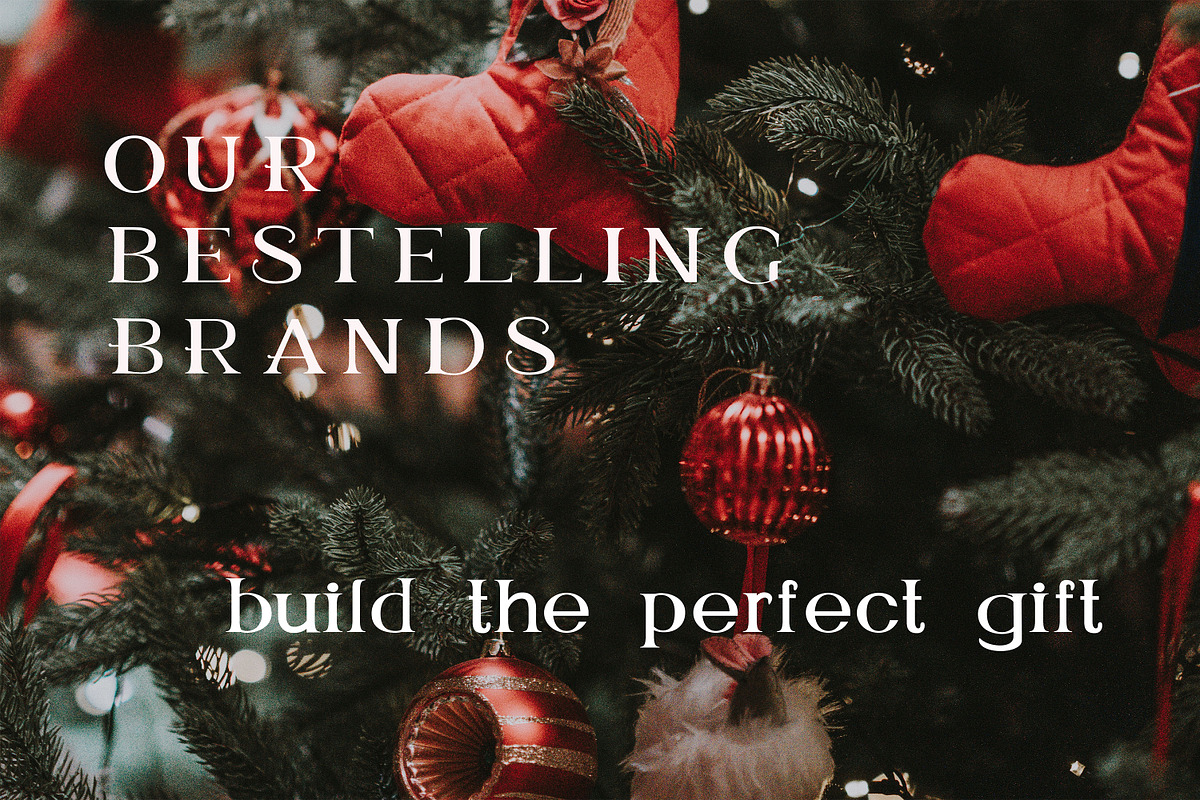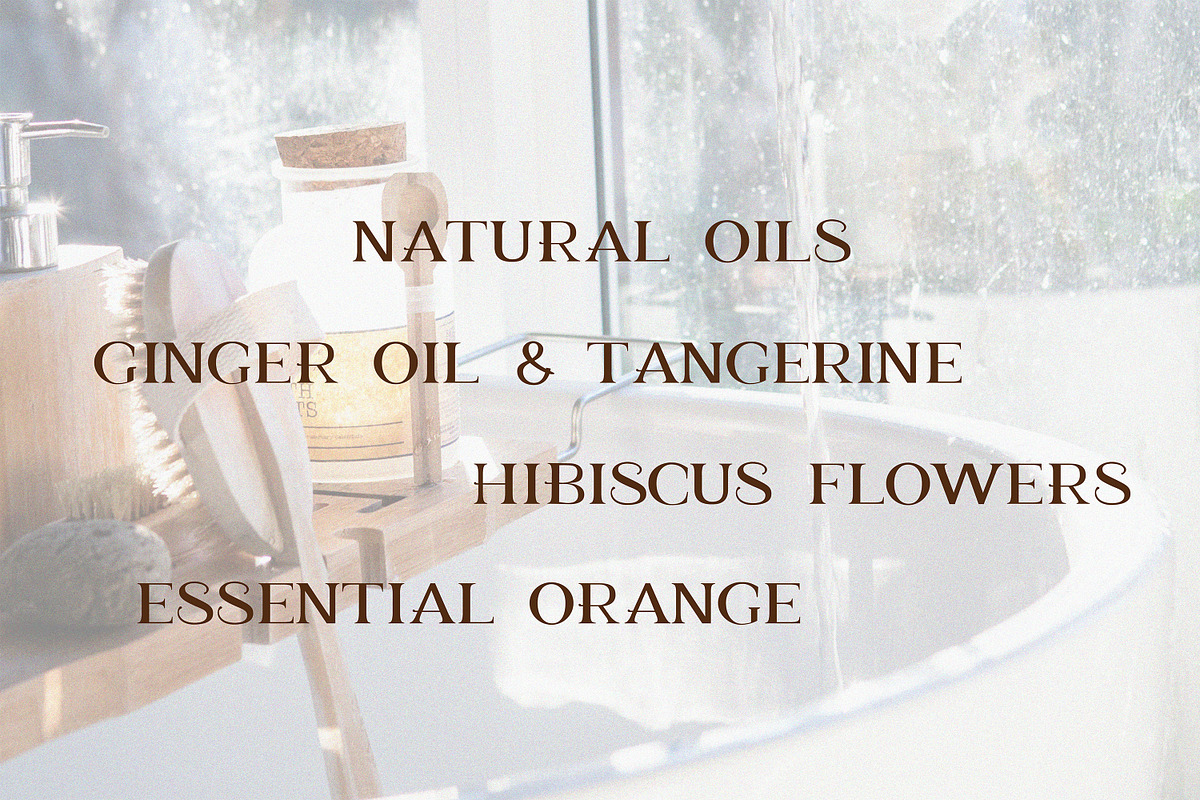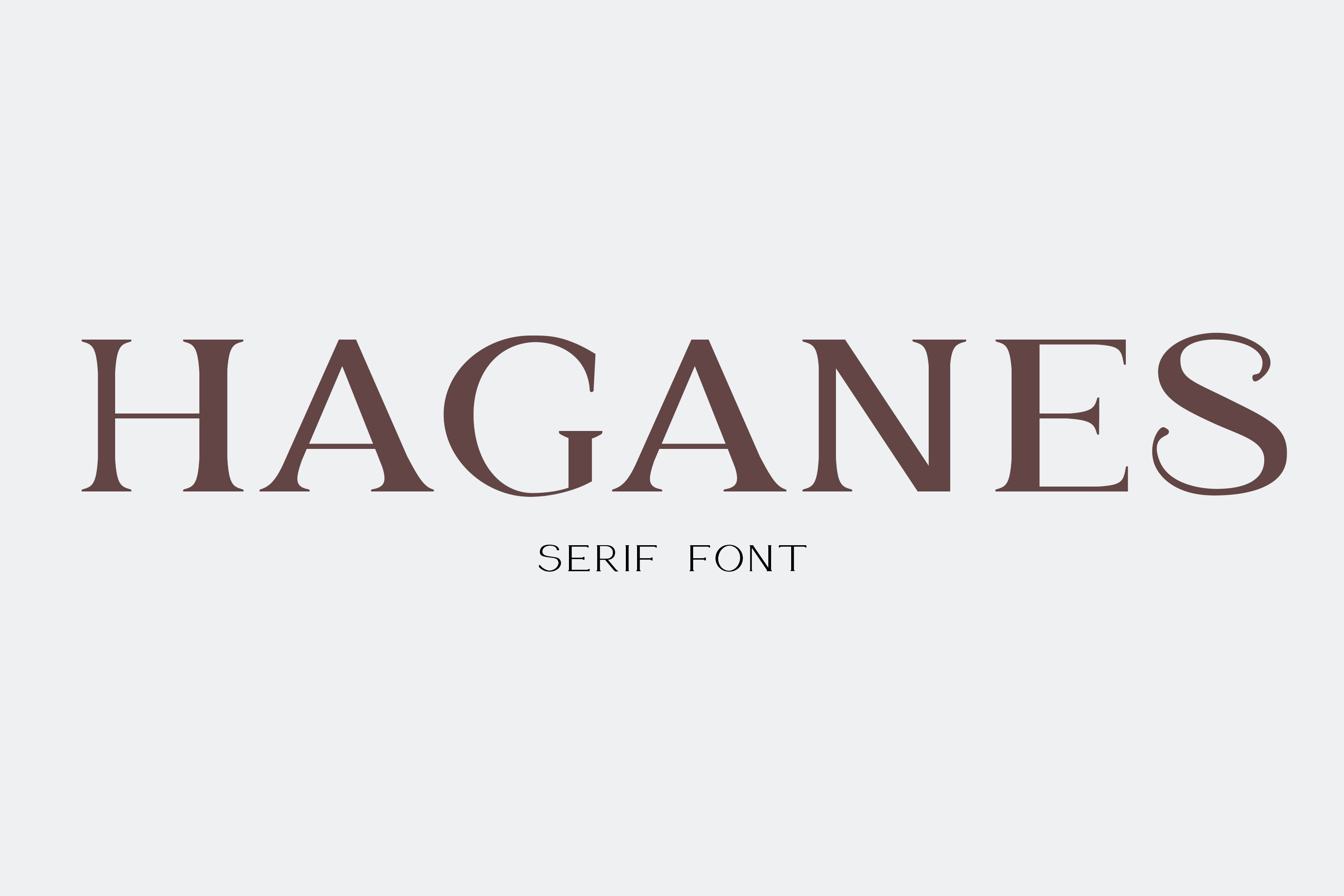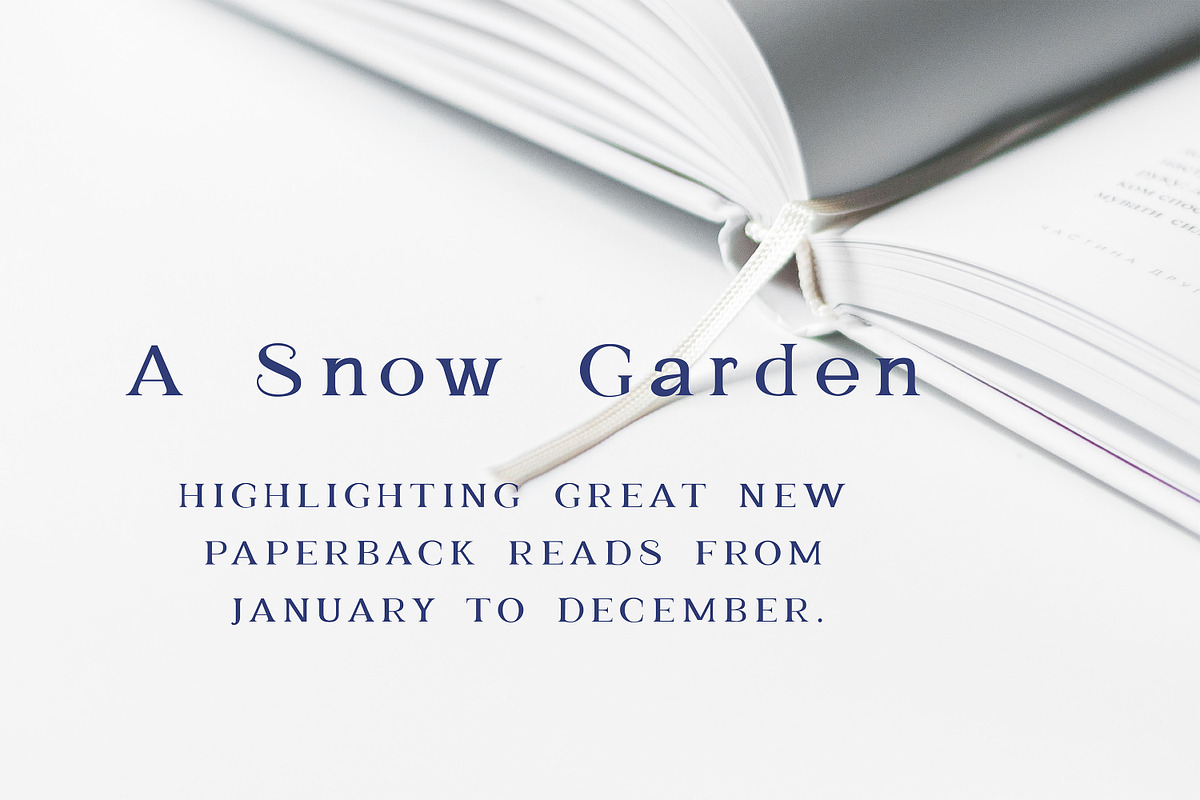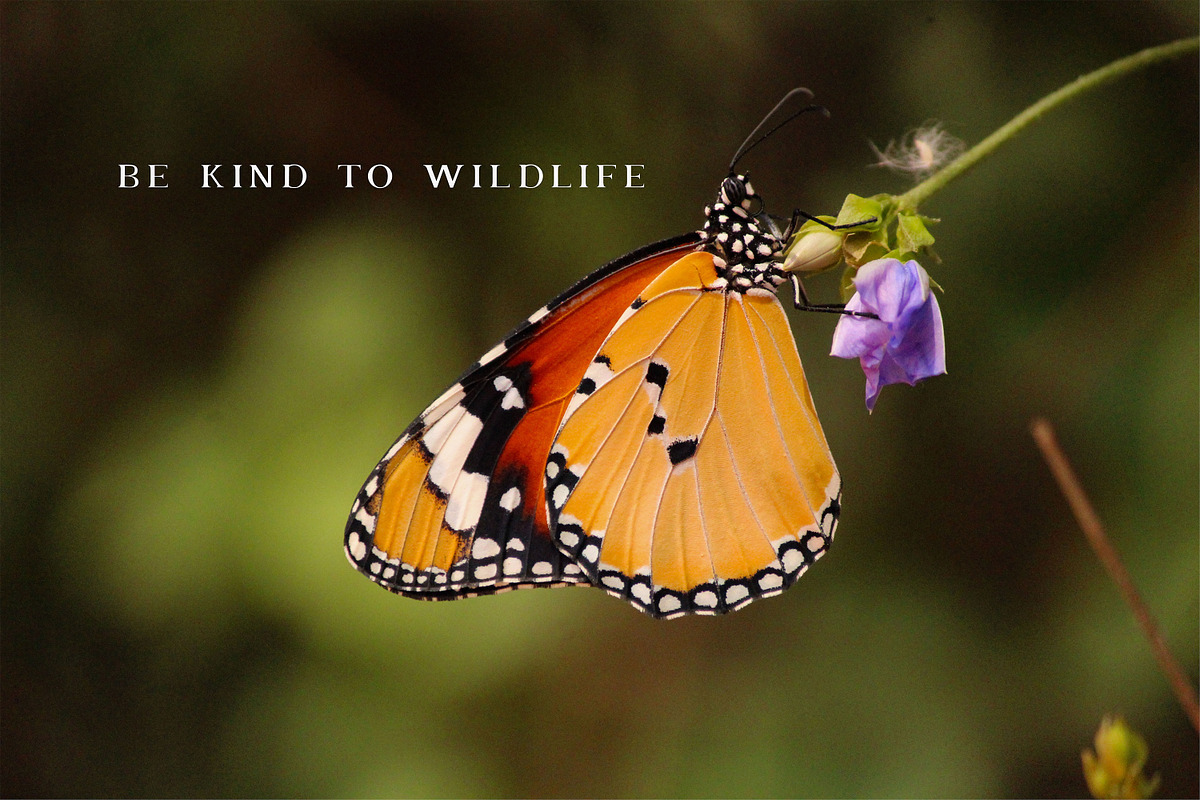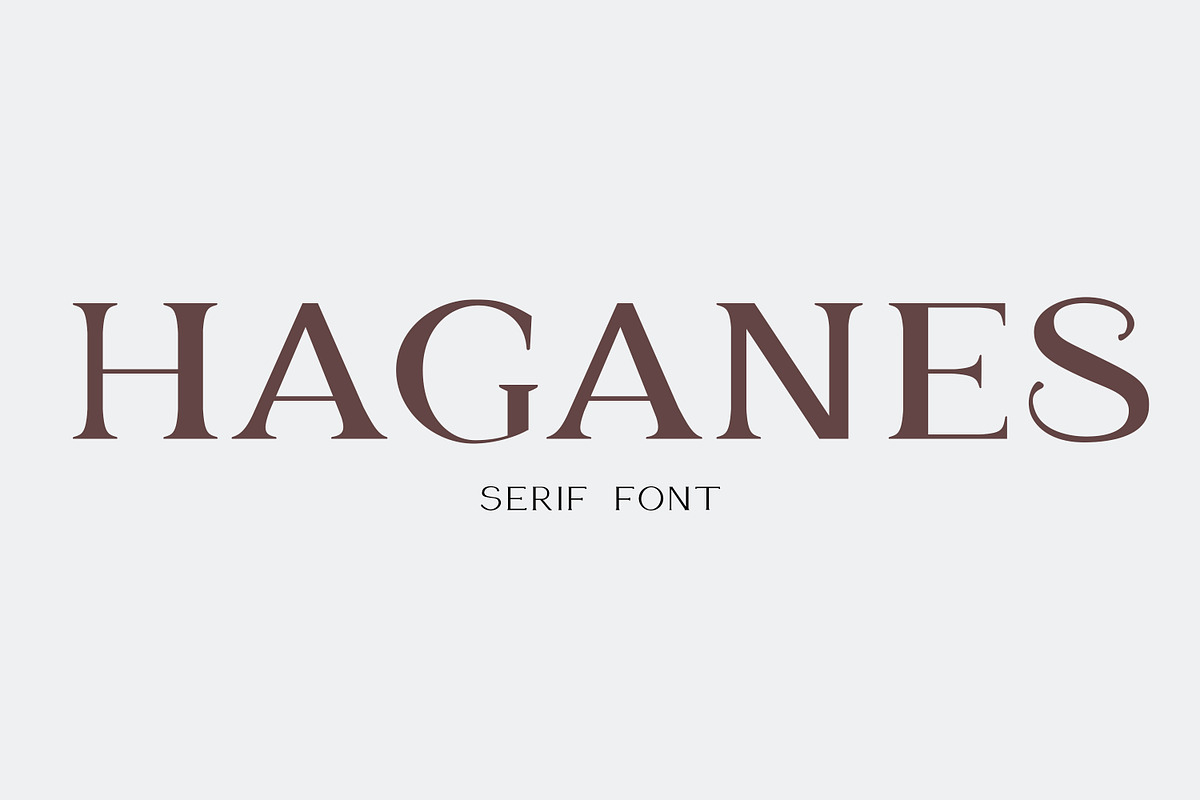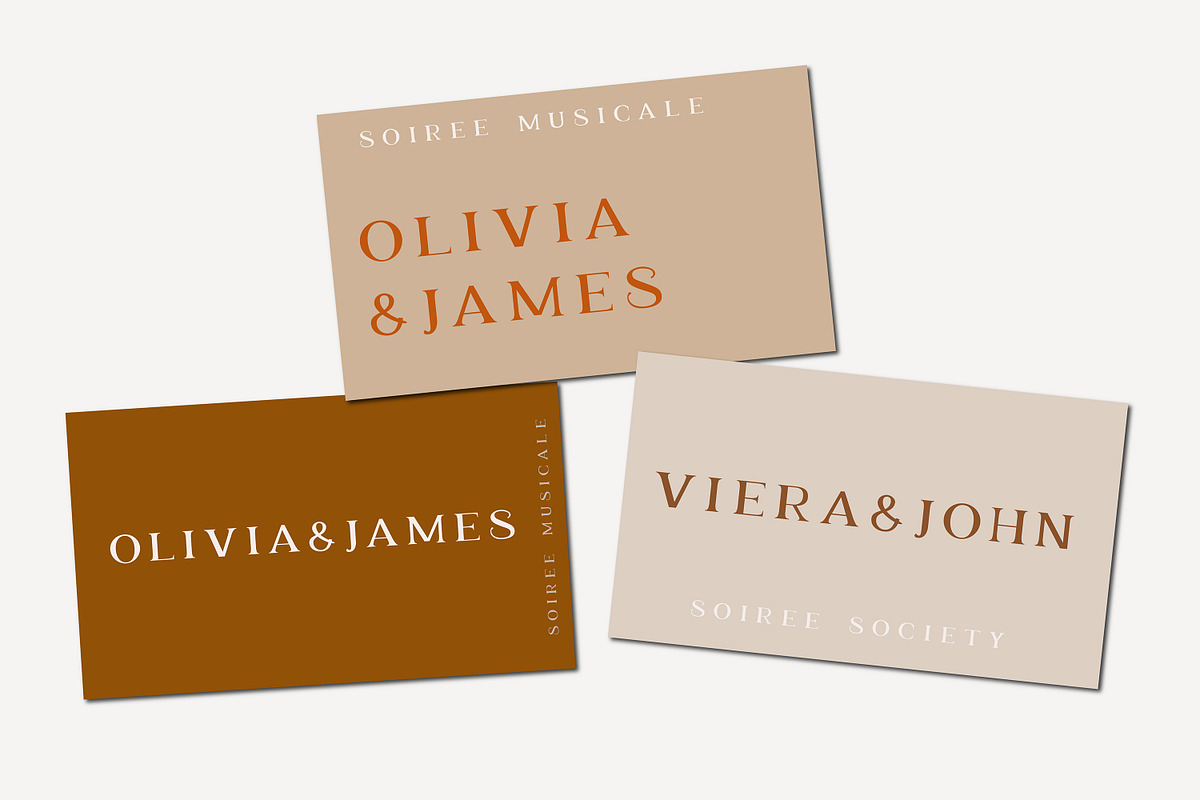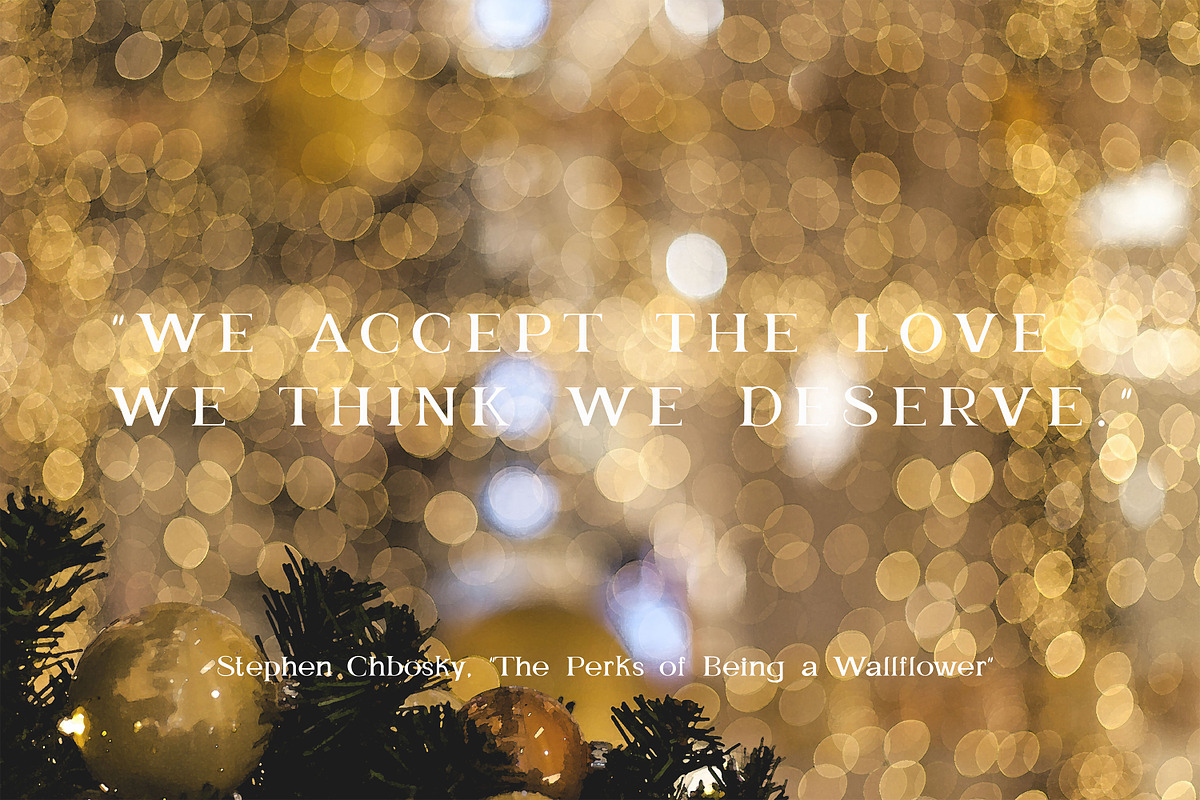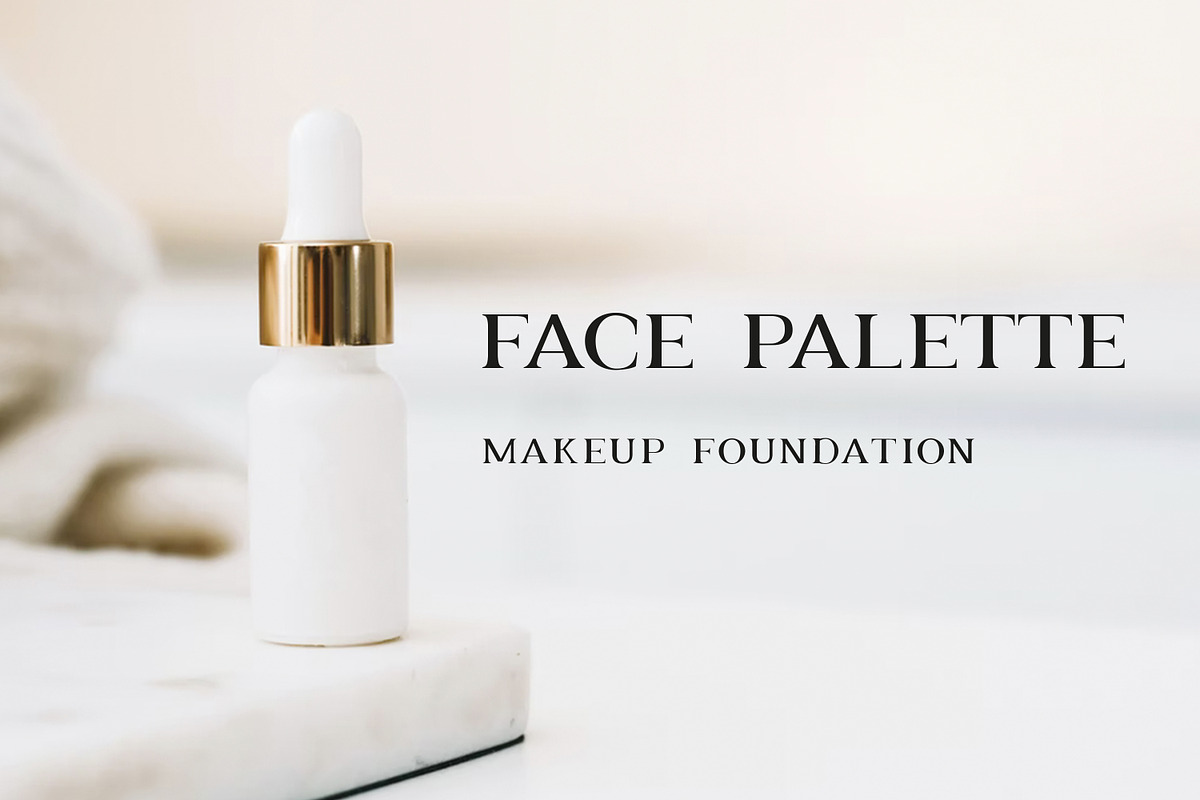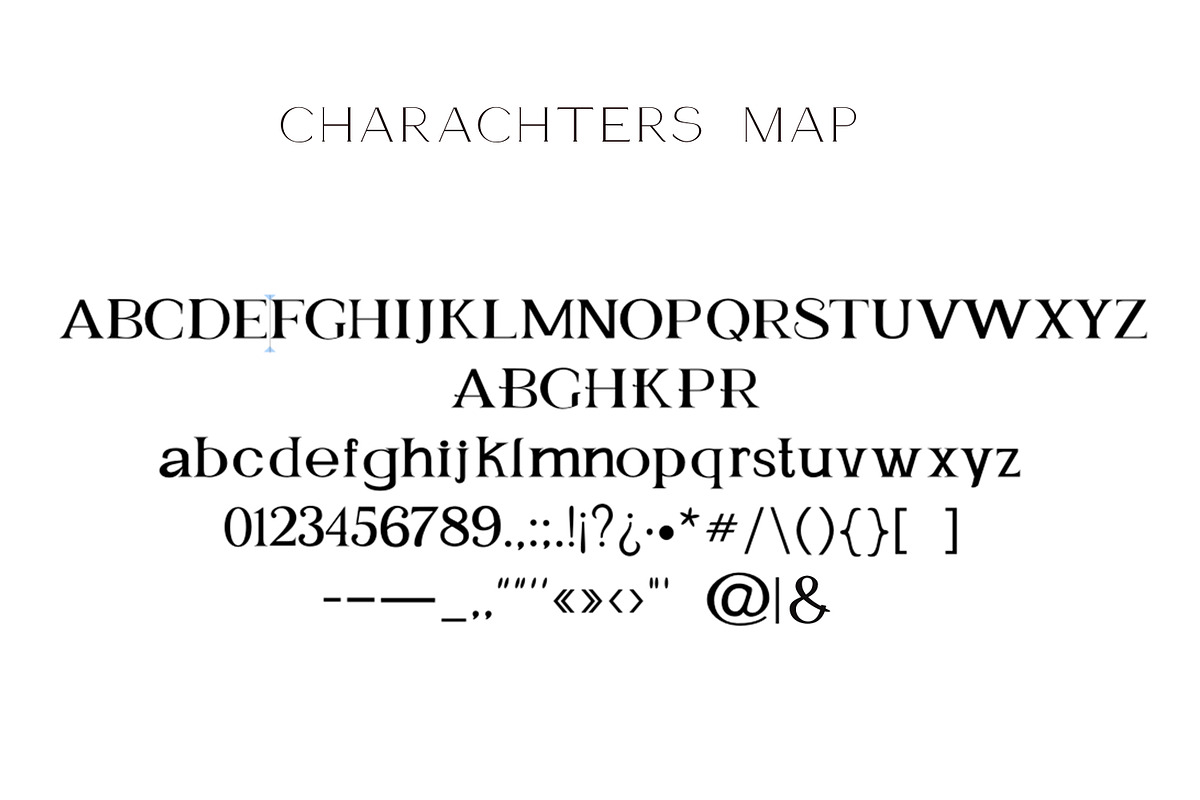
Haganes - Serif font
Haganes is a serif font with modern look and minimalistic style.
Haganes is universal, it works great in headlines, high-end branding, logo designs, magazines, product packaging & invitations. It comes in 1 style - regular and has the basic character set and punctuation.